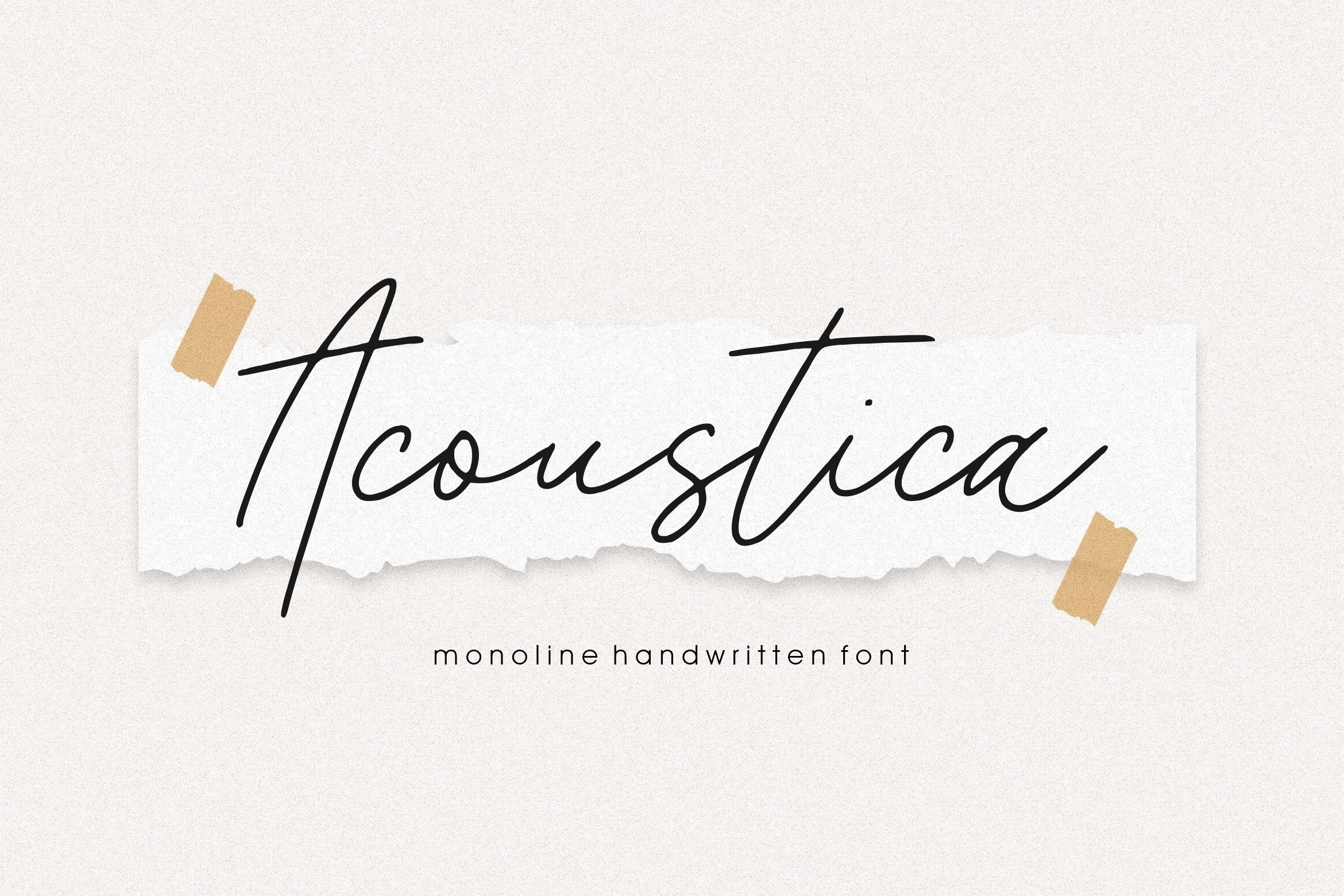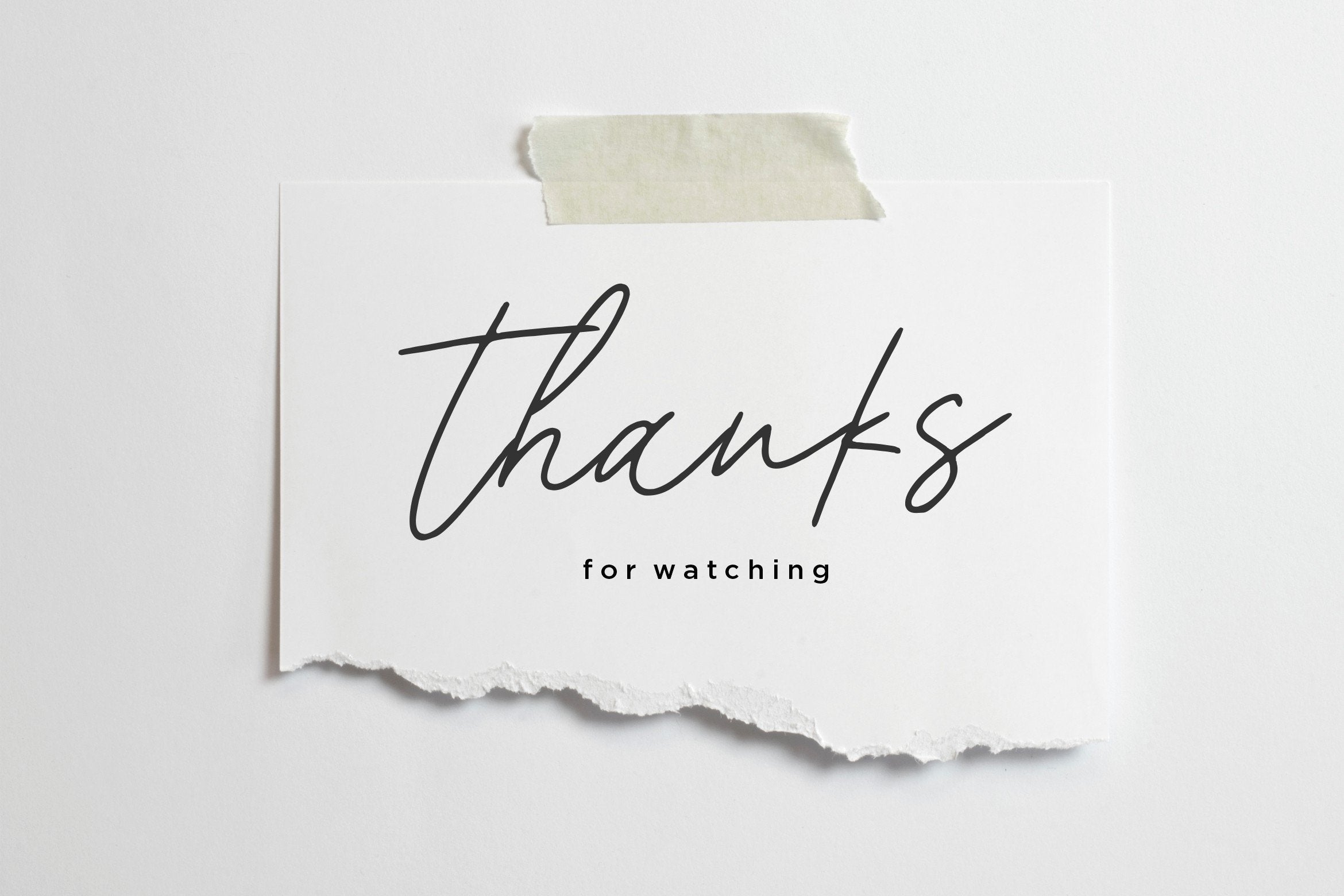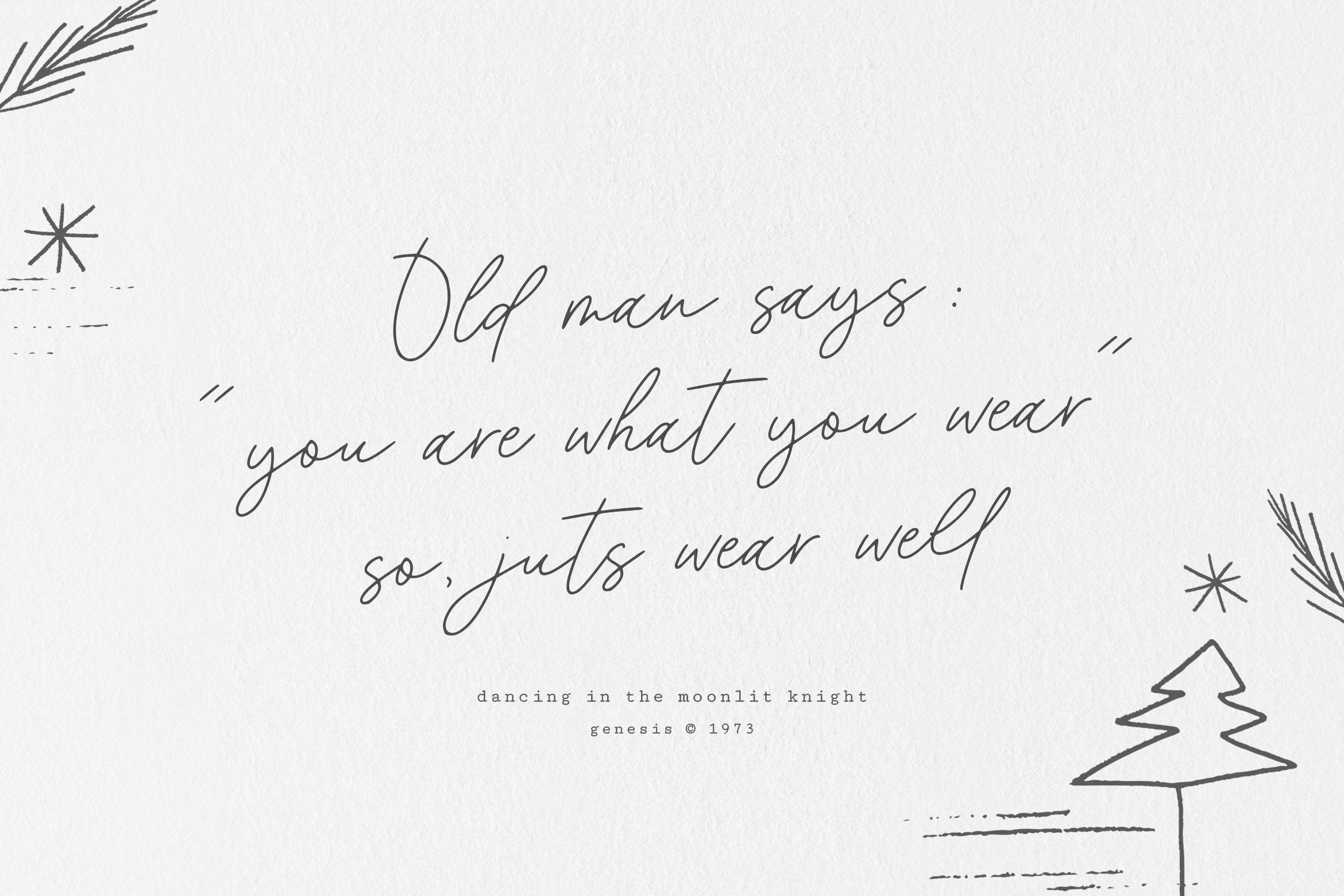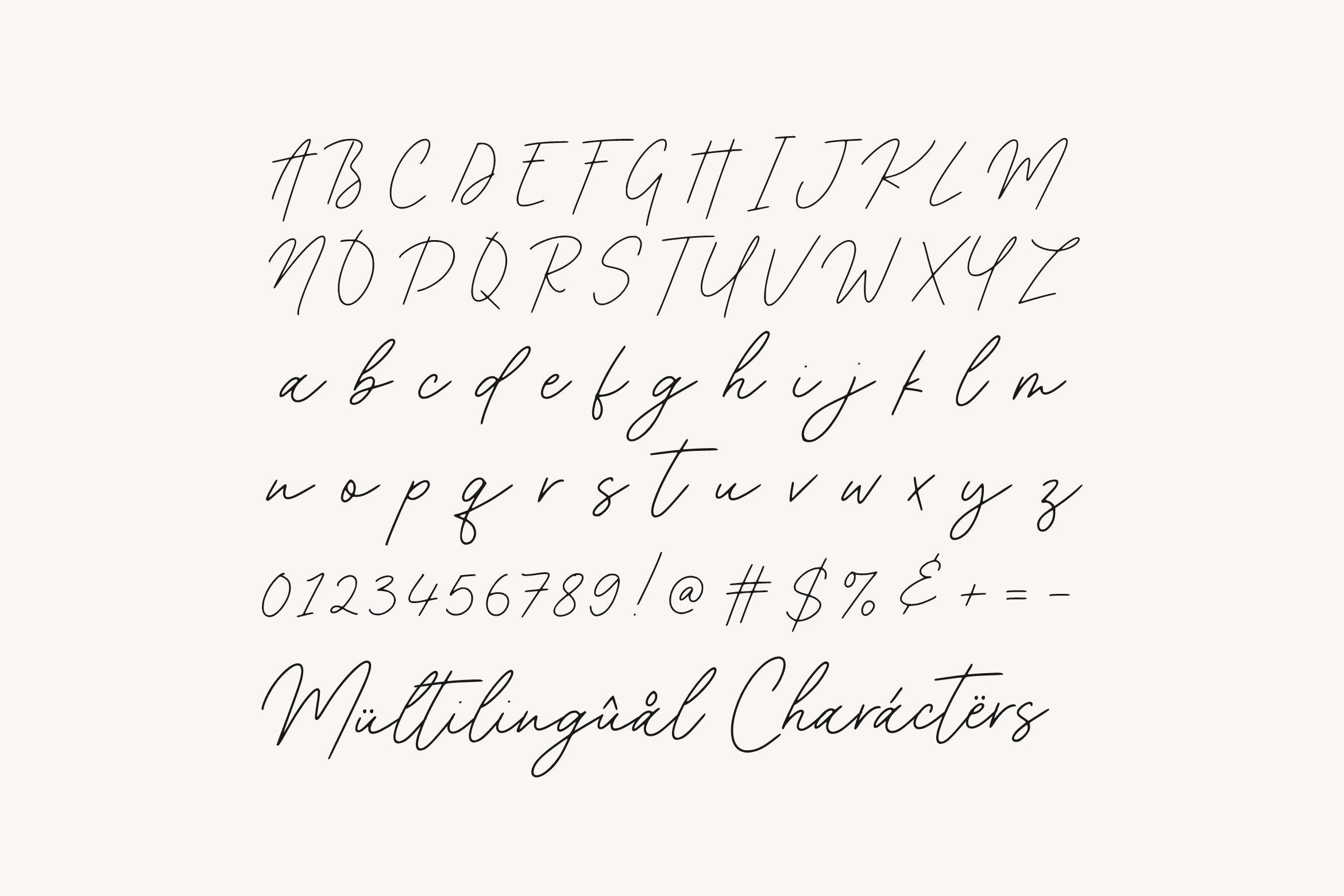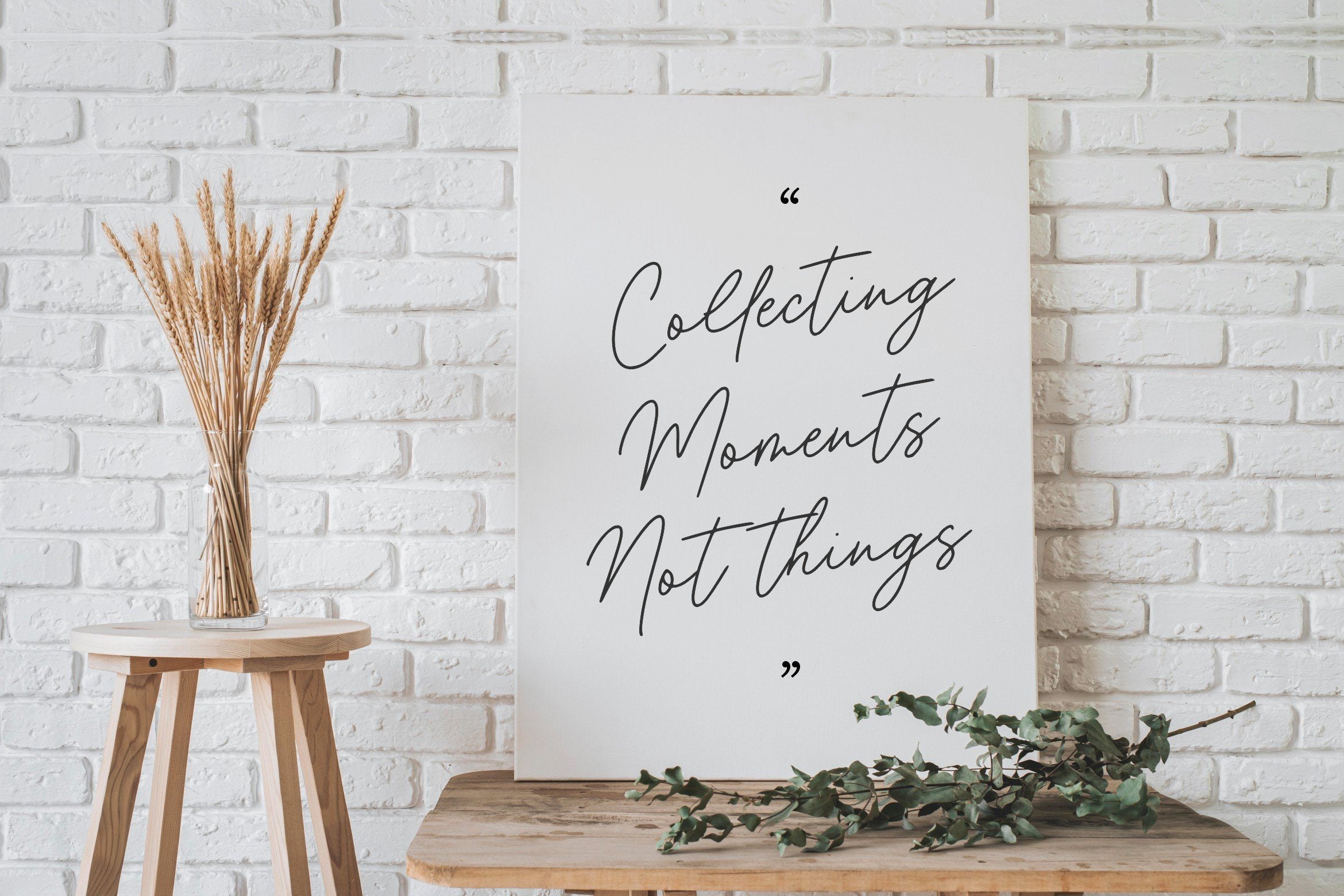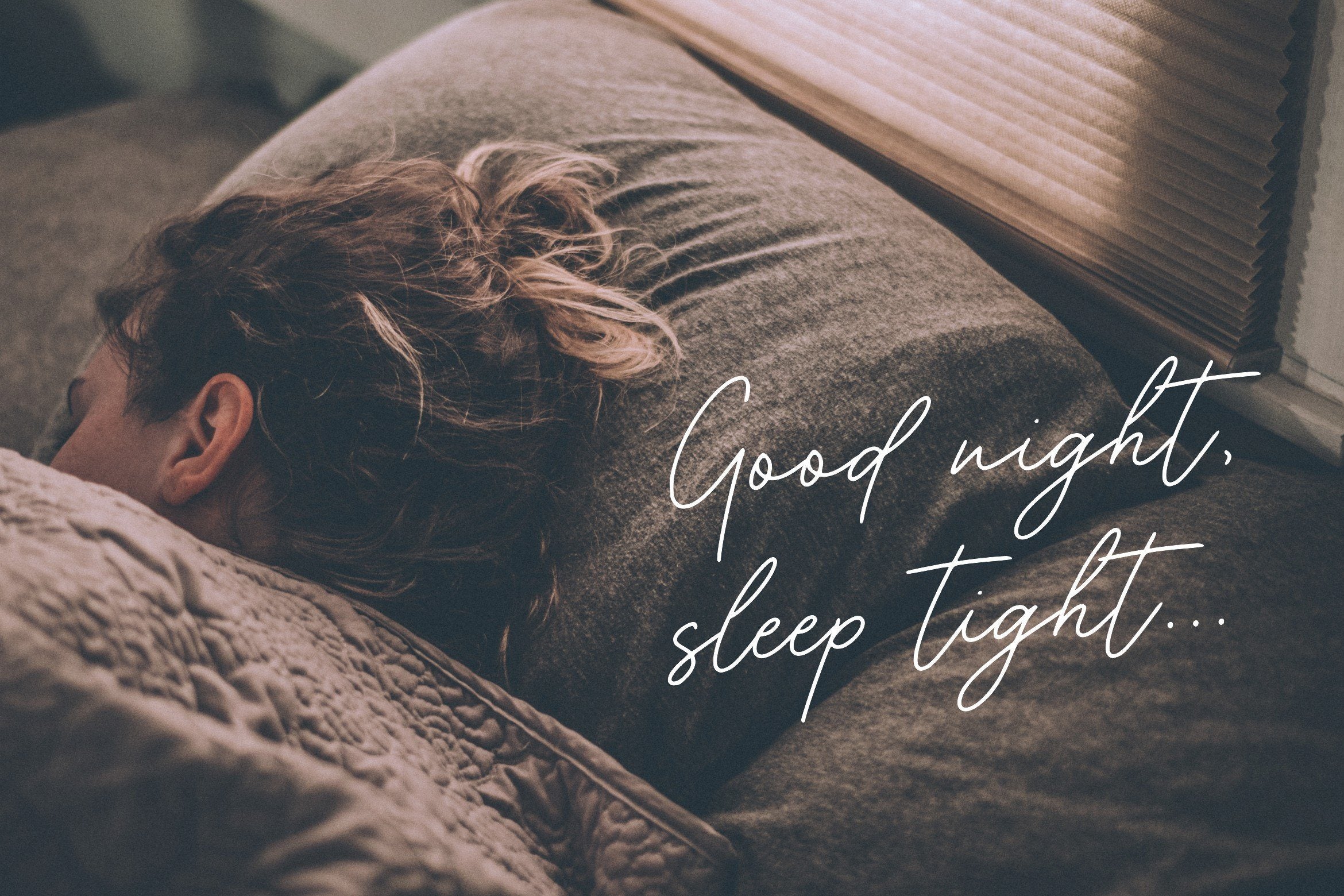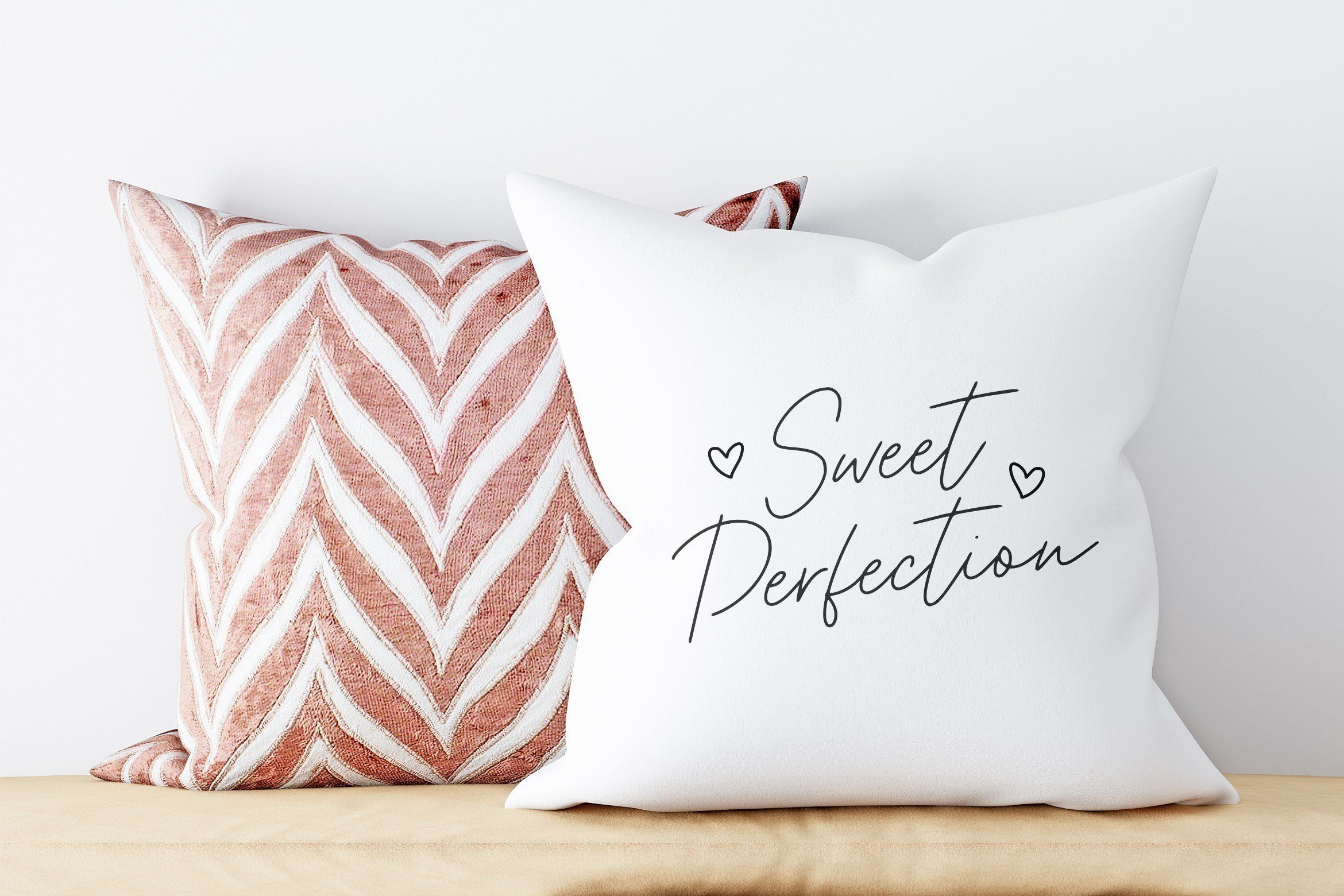
Acoustica Monoline Handwritten Font
Introducing by Balpirick Studio. Proudly Present, Acoustica Font. Acoustica is a Monoline Handwritten Font. Acoustica is a lovely and delicate script font that exudes elegance and class. This font was particularly crafted for those who need a beautiful and refreshing look to their designs. This font includes TTF, OTF and WOFF, Acoustica also multilingual support. Enjoy the font, feel free to comment or feedback, send me PM or email. Thank you!